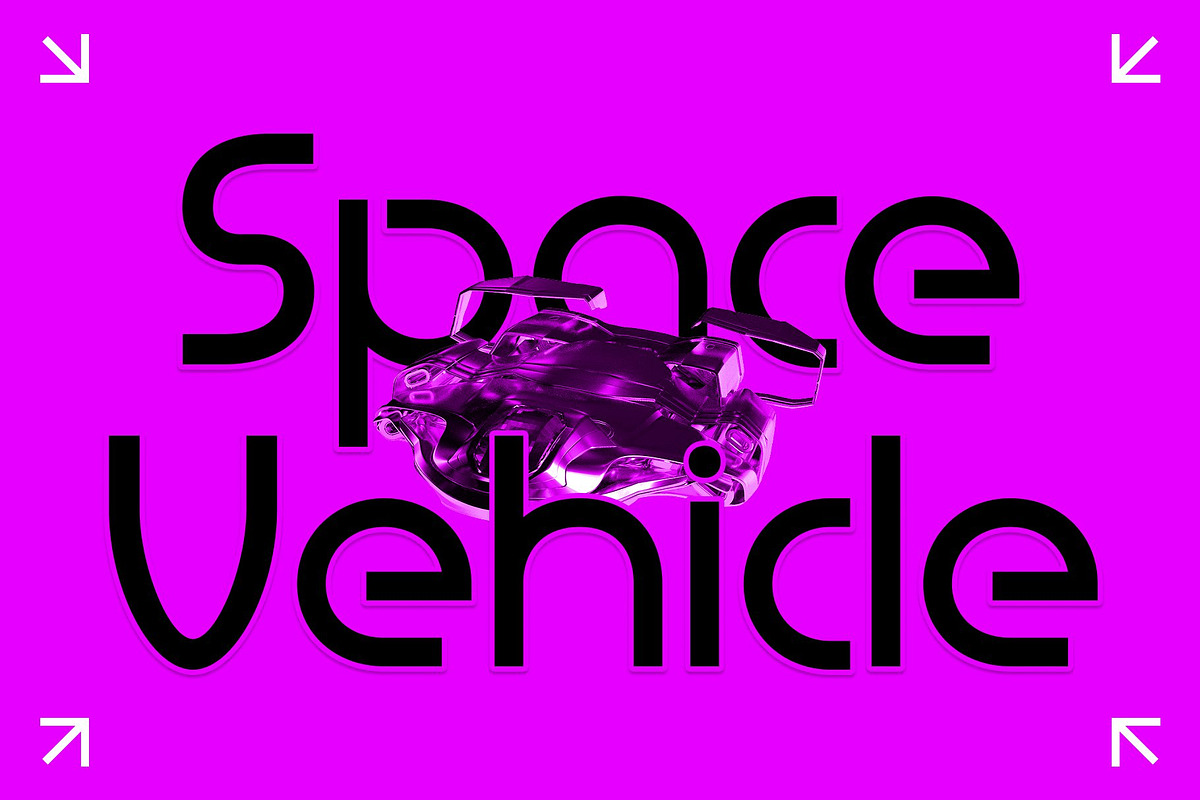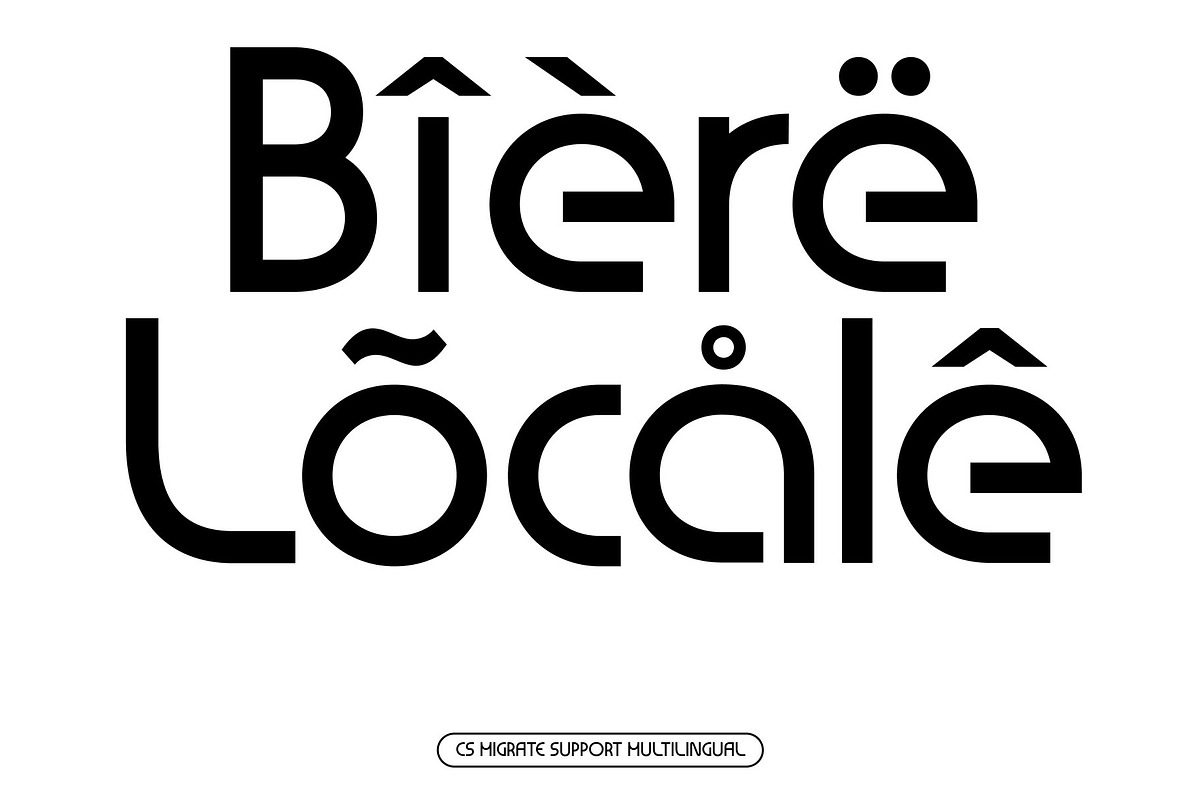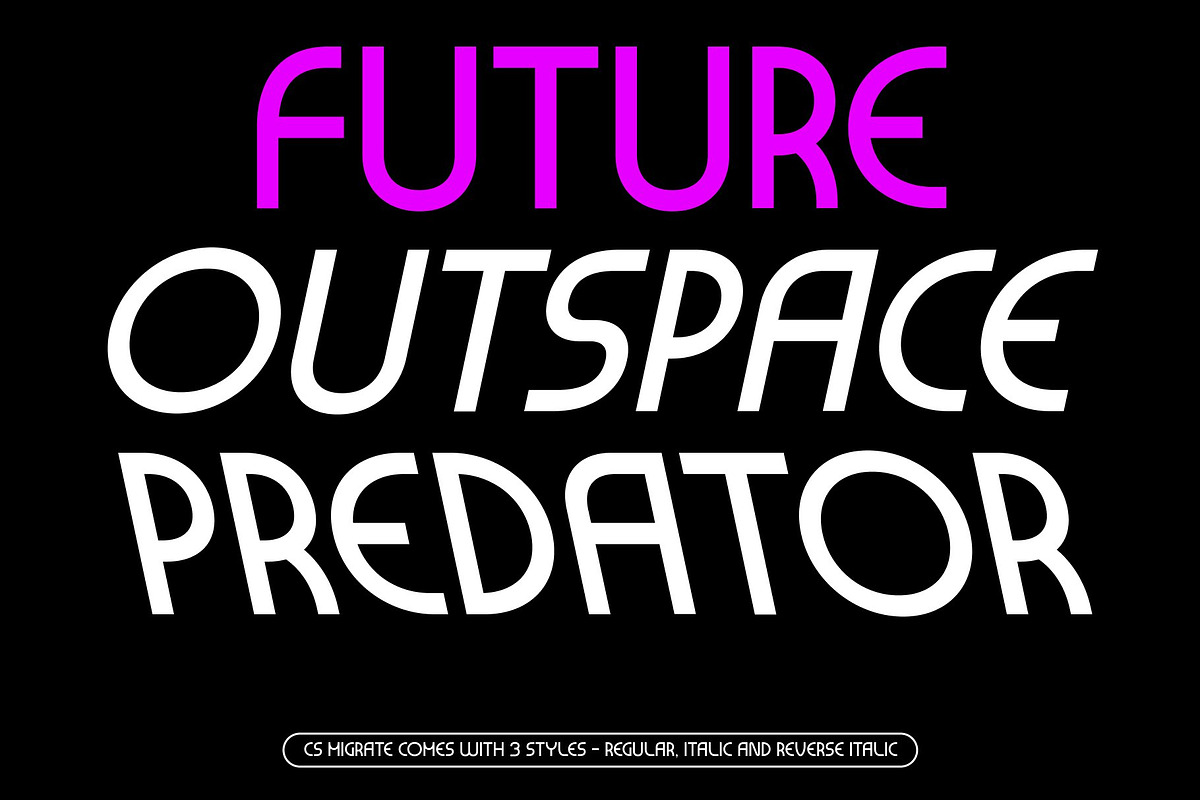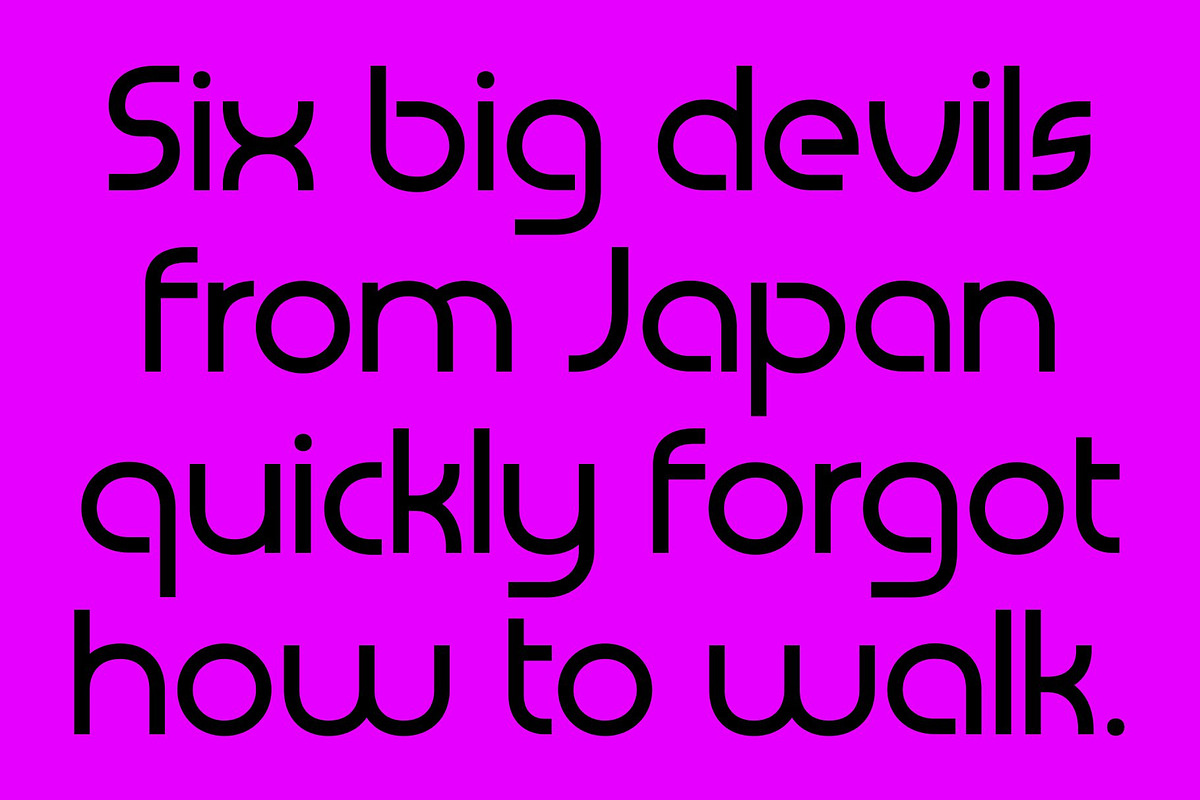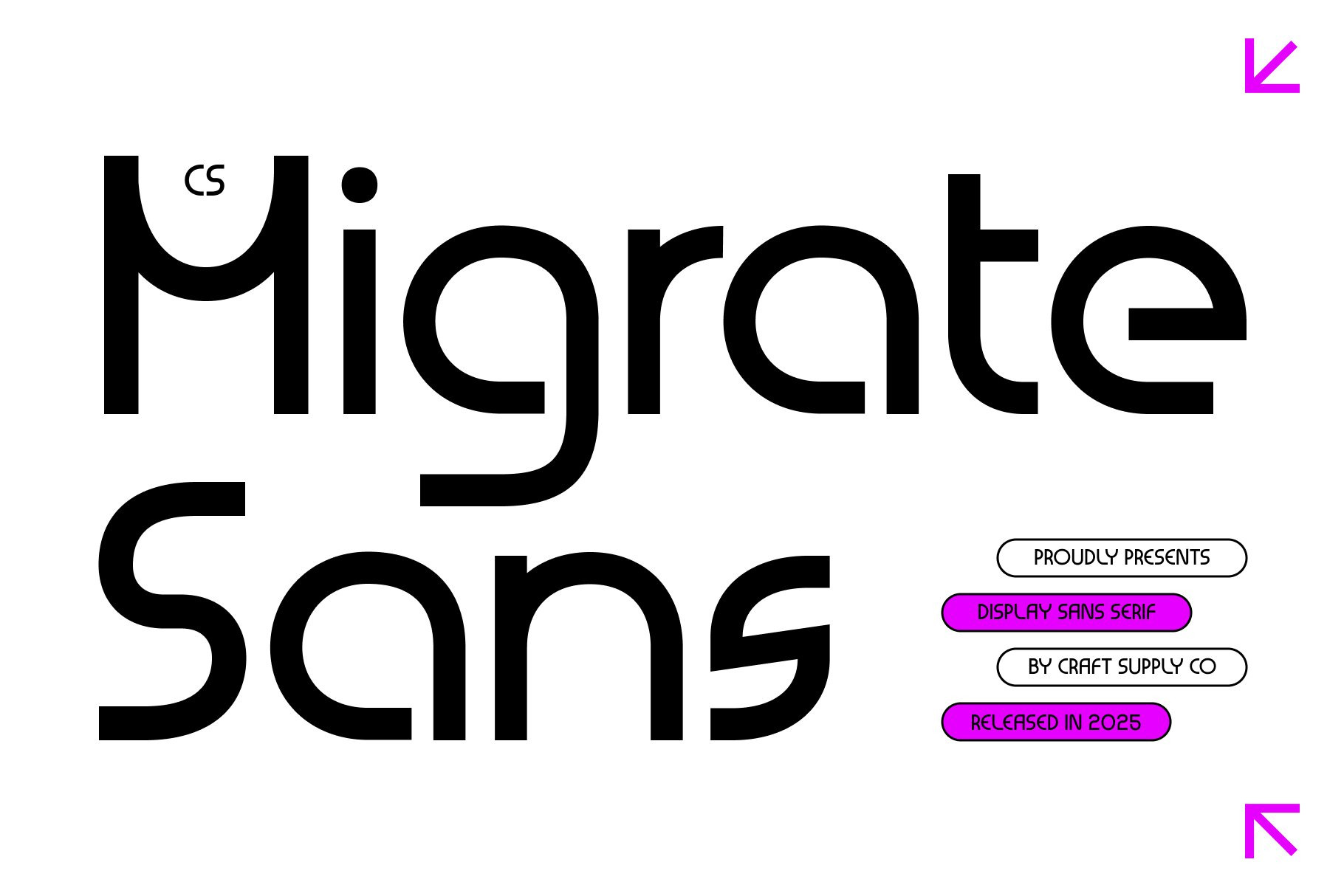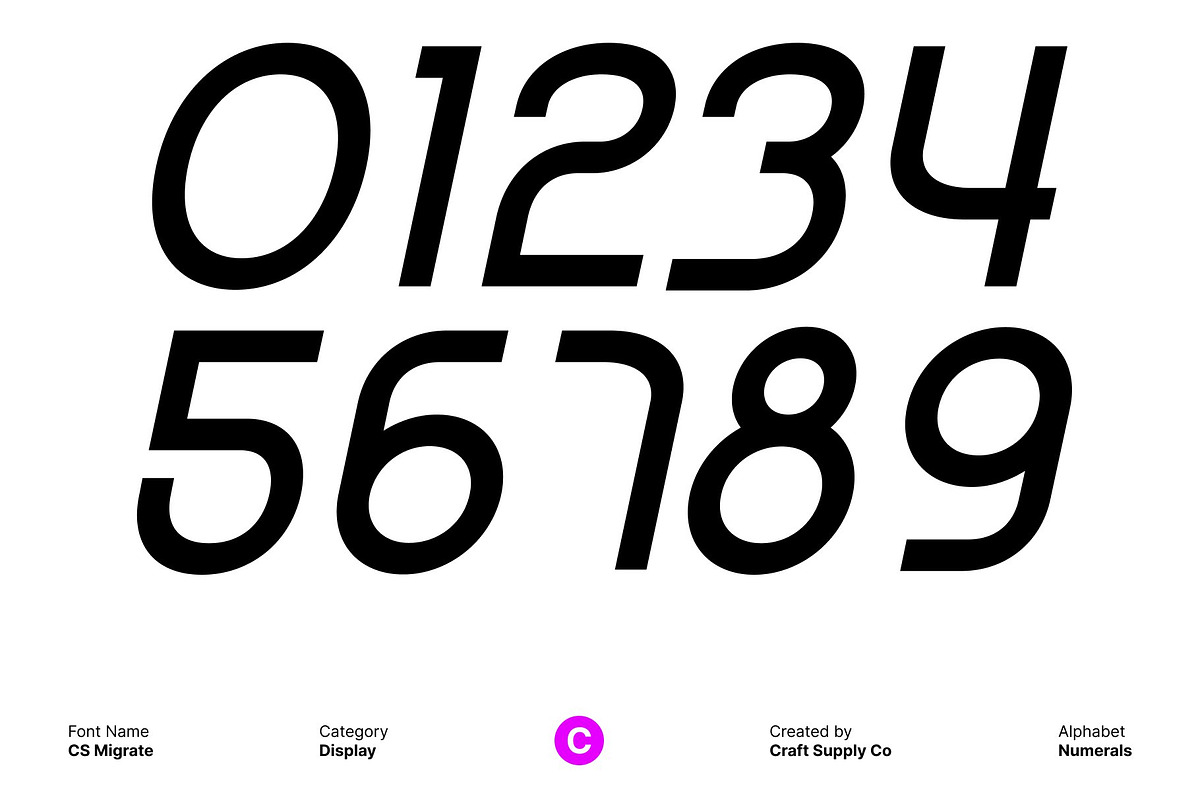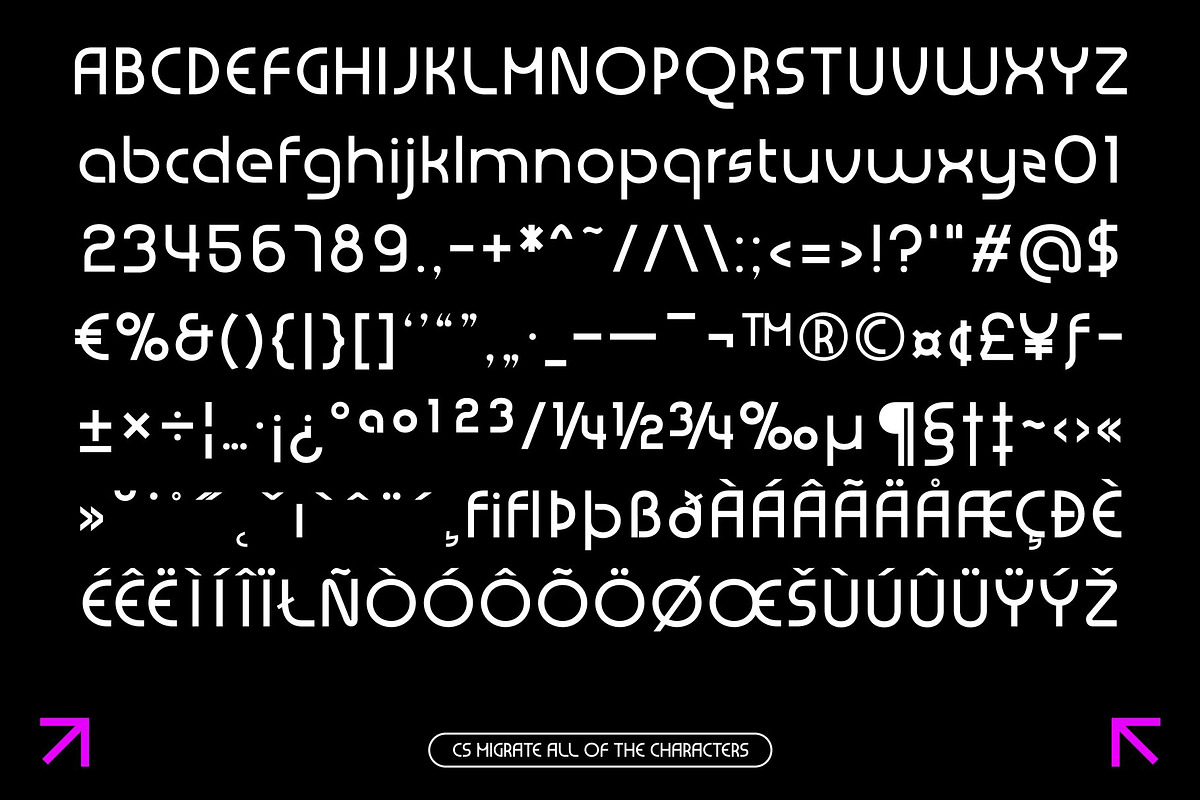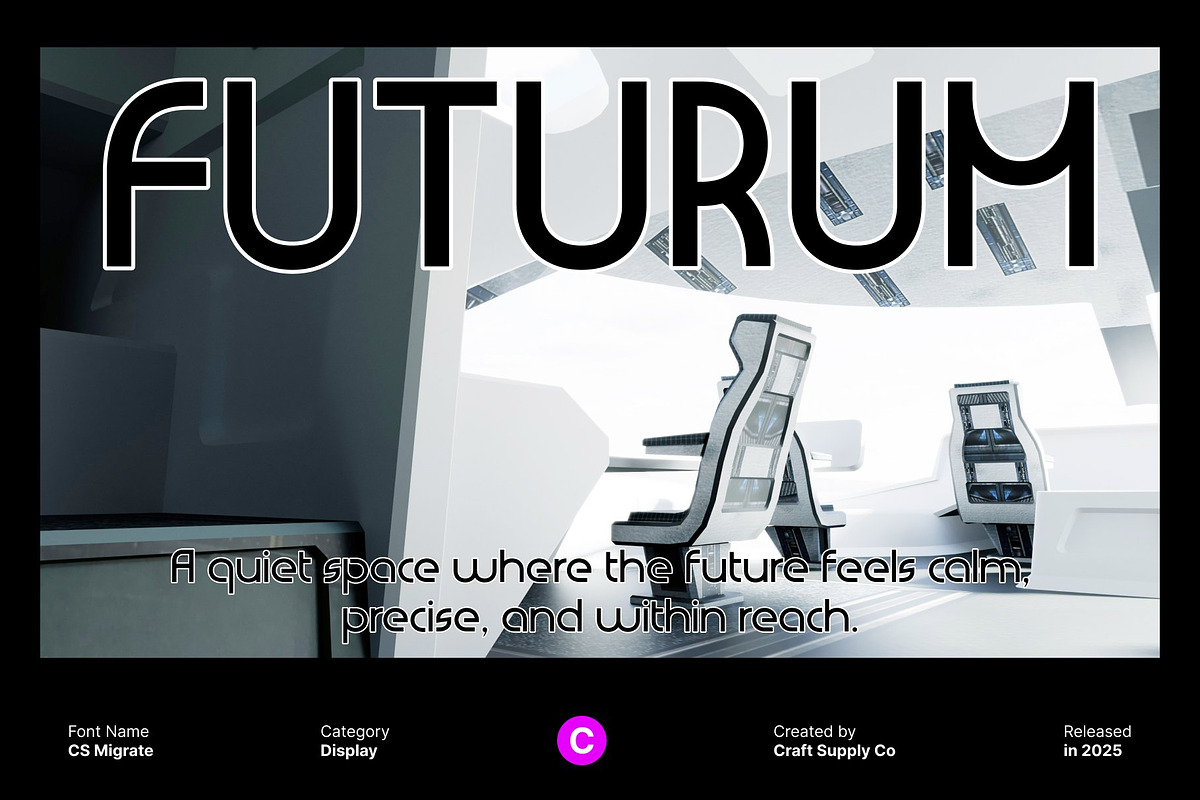
CS Migrate – Modern Display Font
CS Migrate – Bauhaus-Inspired Display Font with Modern Geometry
Bauhaus Display Font with Modular Aesthetics This is a modern display font inspired by the Bauhaus design movement, celebrating clarity, function, and geometric beauty. Built from clean shapes and modular forms, this typeface delivers a stylish and structured appearance that feels both artistic and contemporary. Its design reflects the spirit of modernism, where form follows function, making a strong visual statement for modern creative projects.
Geometric Construction with Modular Rhythm The letterforms of this font are constructed using precise geometric elements, creating a balanced and harmonious typographic system. Circles, straight lines, and simplified curves work together to form characters that feel intentional and cohesive. This modular approach gives the font a distinct rhythm, allowing text to appear organized, bold, and visually engaging in display settings.
Modern Style Rooted in Design Heritage This font blends historical inspiration with a fresh, modern execution. Drawing from Bauhaus principles, it communicates innovation, creativity, and progressive thinking. The font feels ideal for designers who want to reference iconic modern design movements while maintaining a clean and relevant aesthetic for today’s visual culture.
Versatile for Posters, Branding, and Editorial Layouts Designed for expressive and impactful use, performs exceptionally well in posters, branding identities, editorial layouts, and creative campaigns. Its strong geometry ensures high visibility, while its stylish structure adds character and sophistication.
- CS Migrate Regular
- CS Migrate Italic
- CS Migrate Reverse Italic